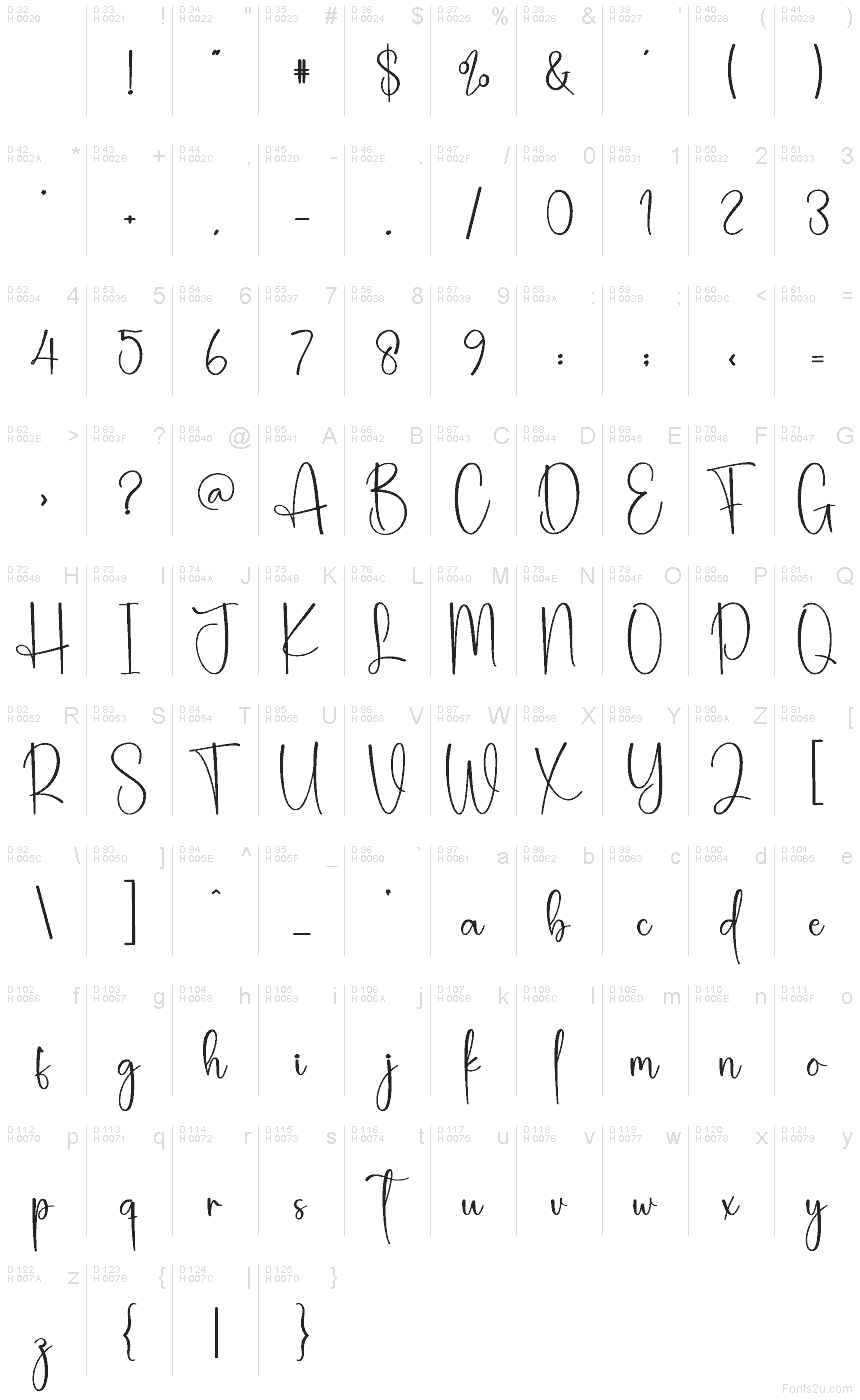
Santa Reindeer
Santa Reindeer font, designed by Scratchones, is a contemporary handwritten font with elegant curves and a smooth flow. The harmonious structure and light weight of each character give this free font its unique, modern appeal that will effortlessly add personality to your design projects.